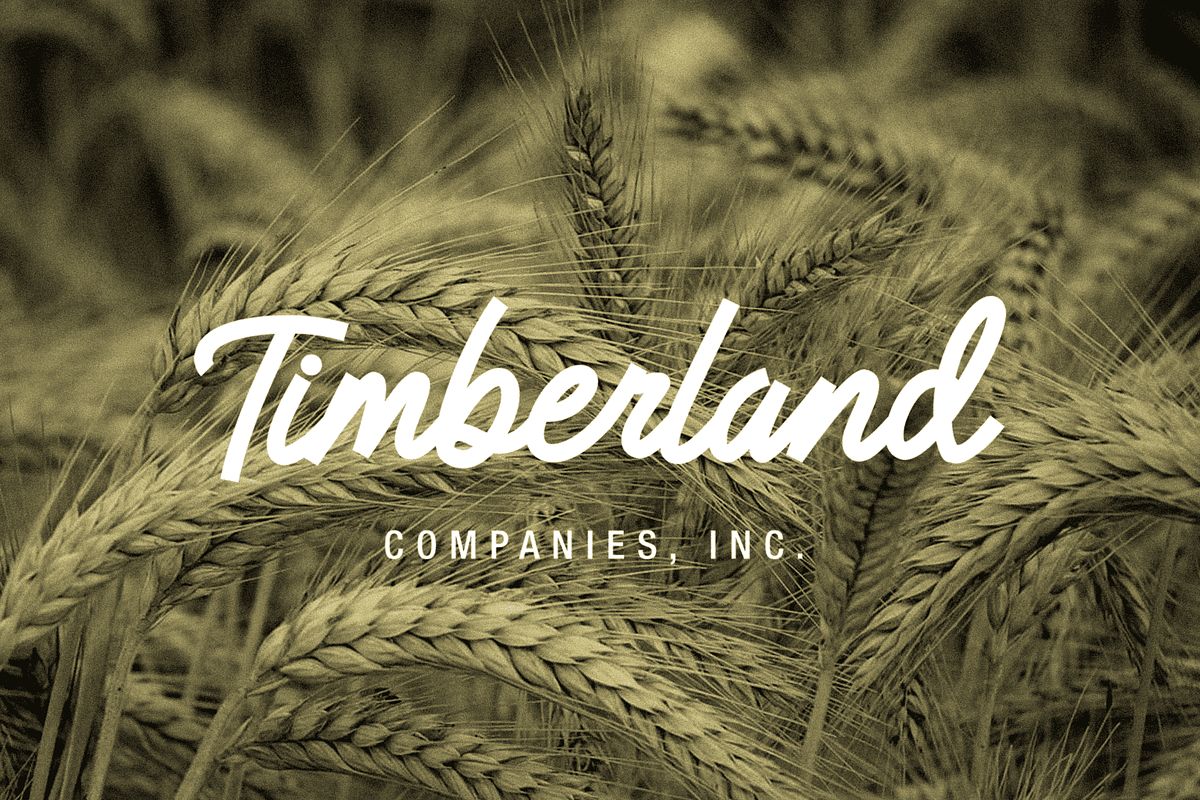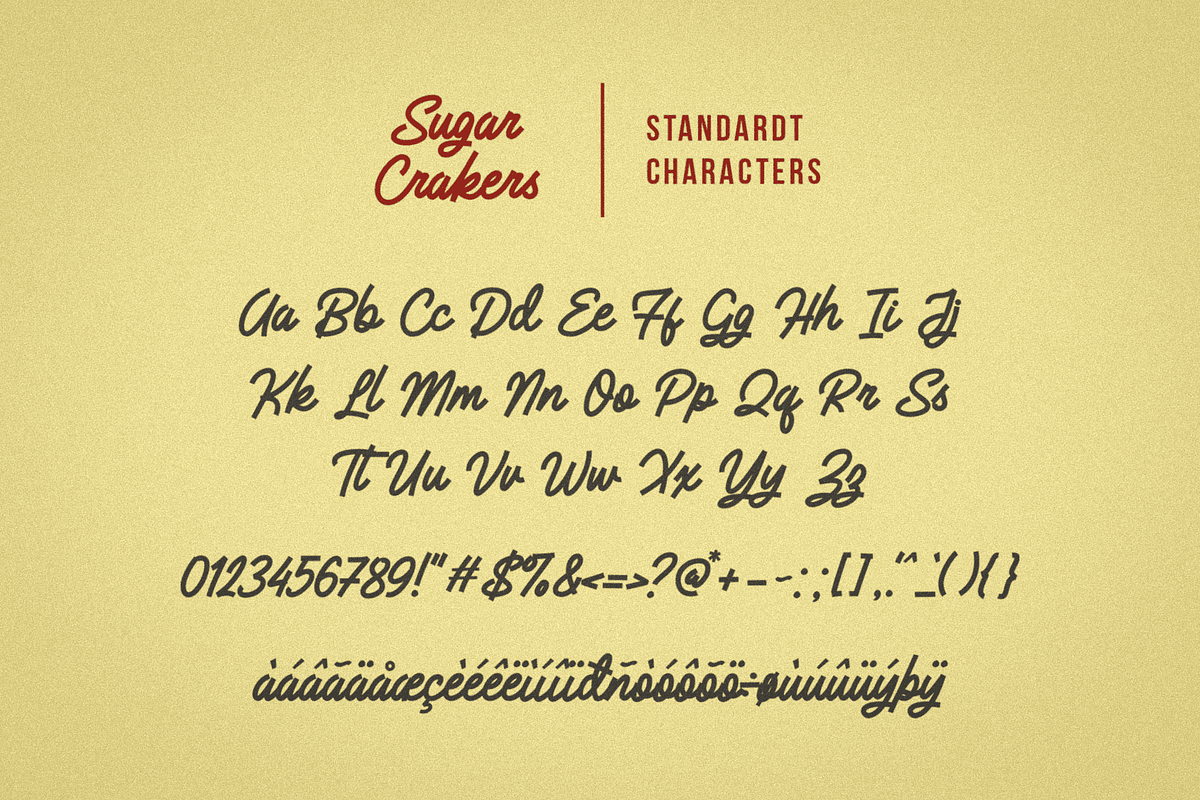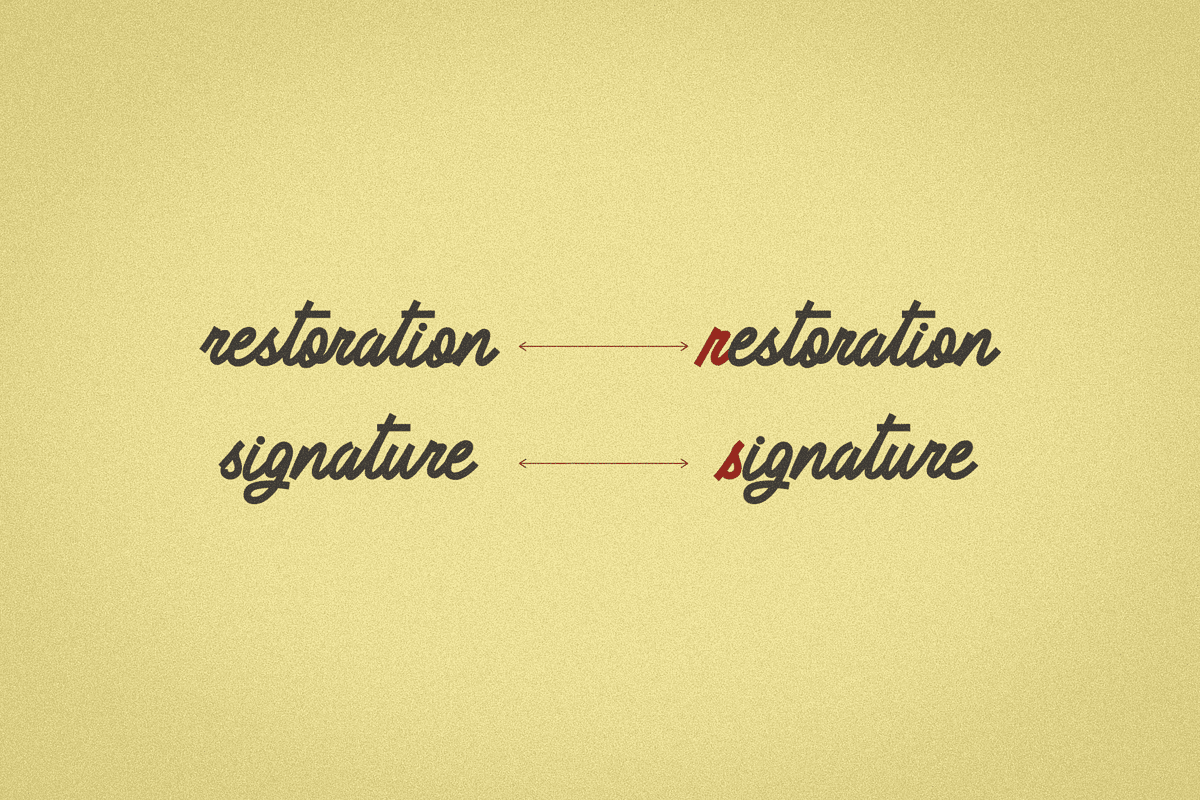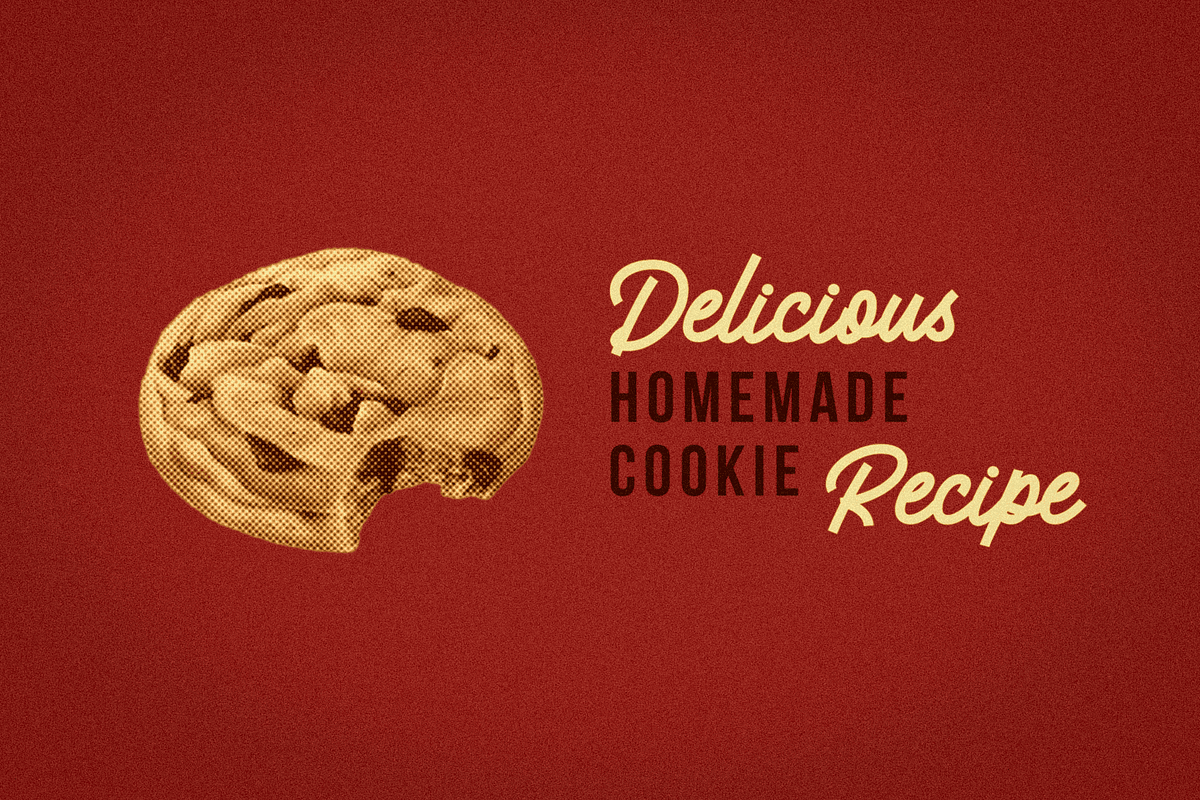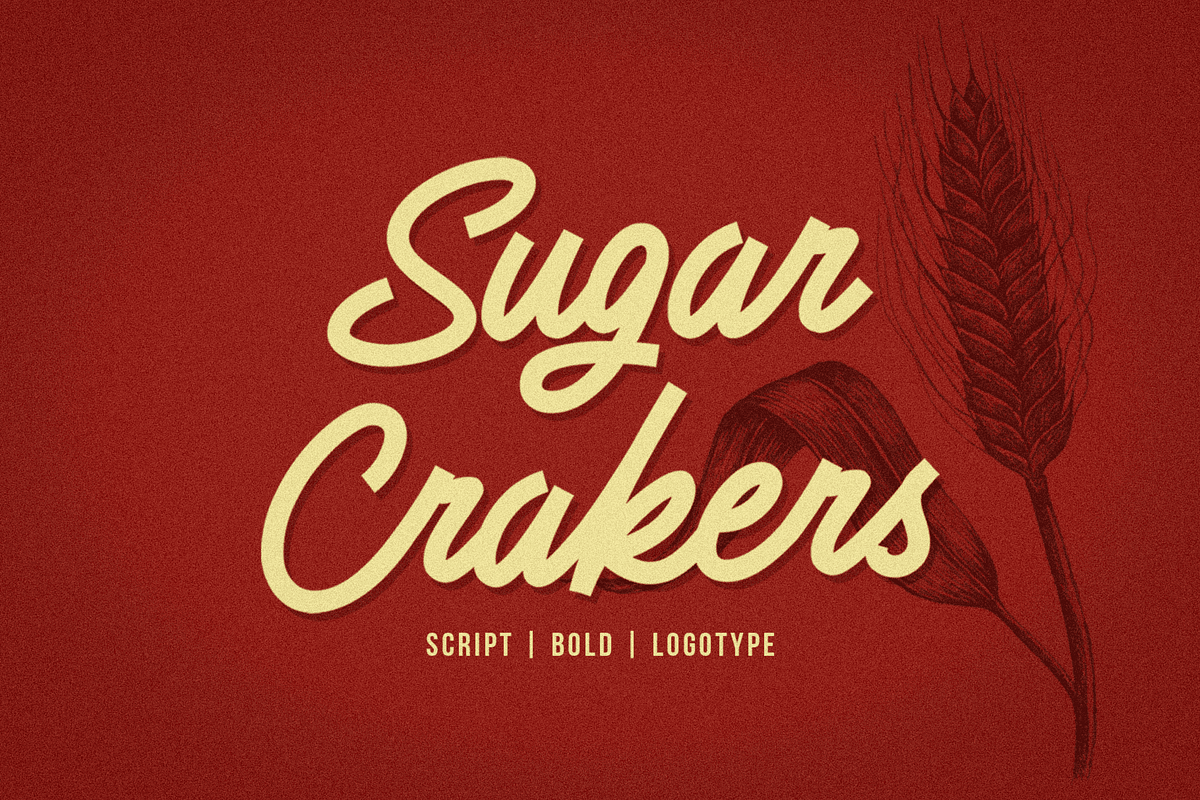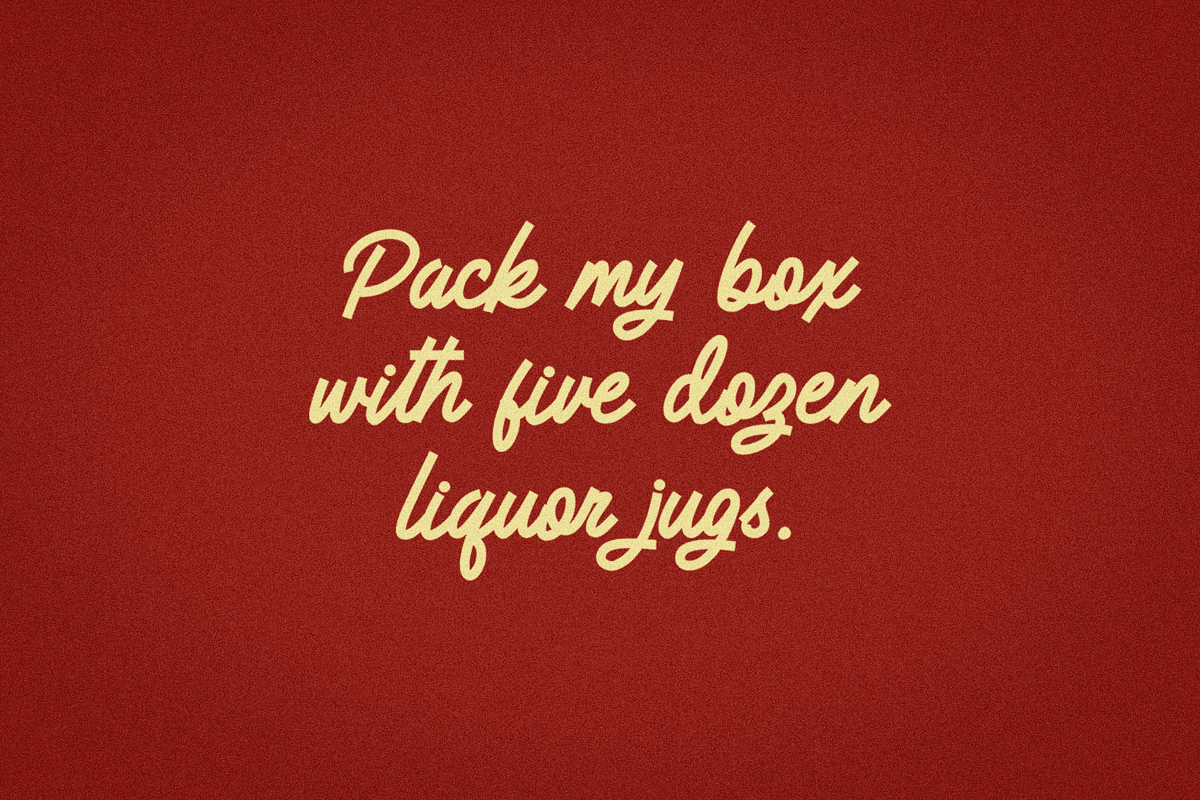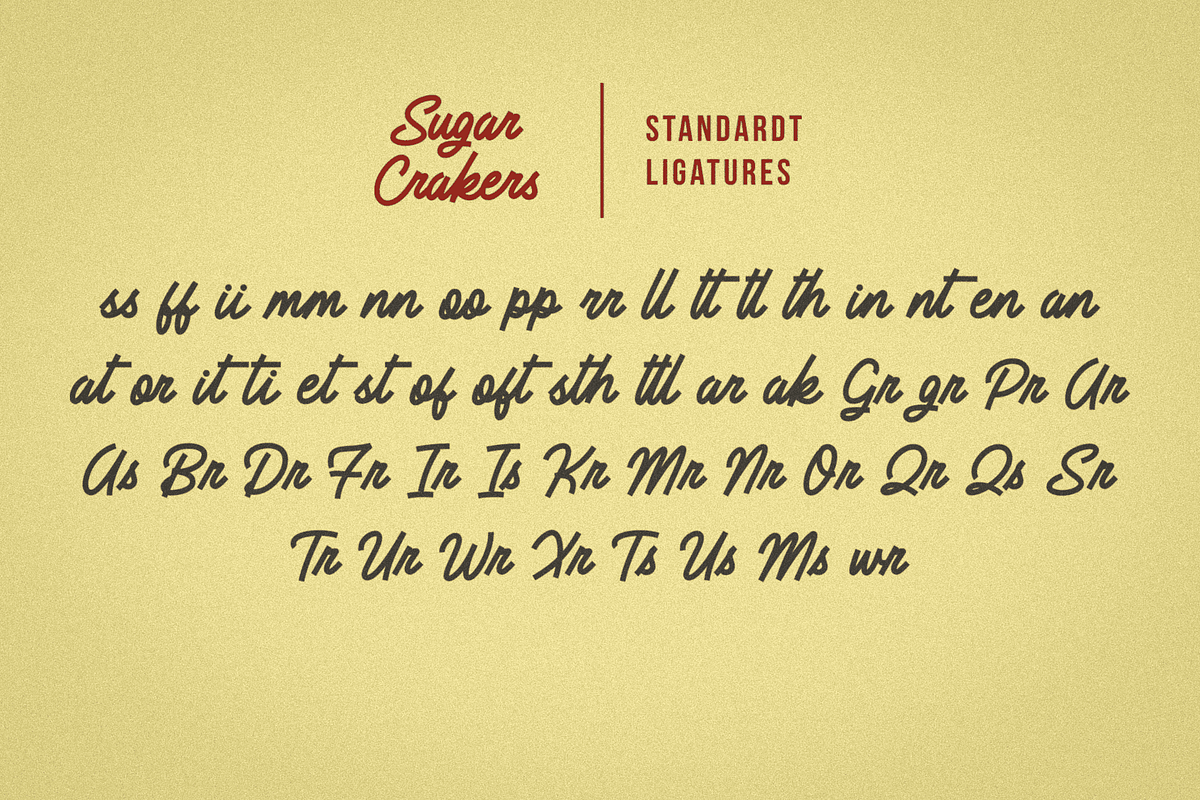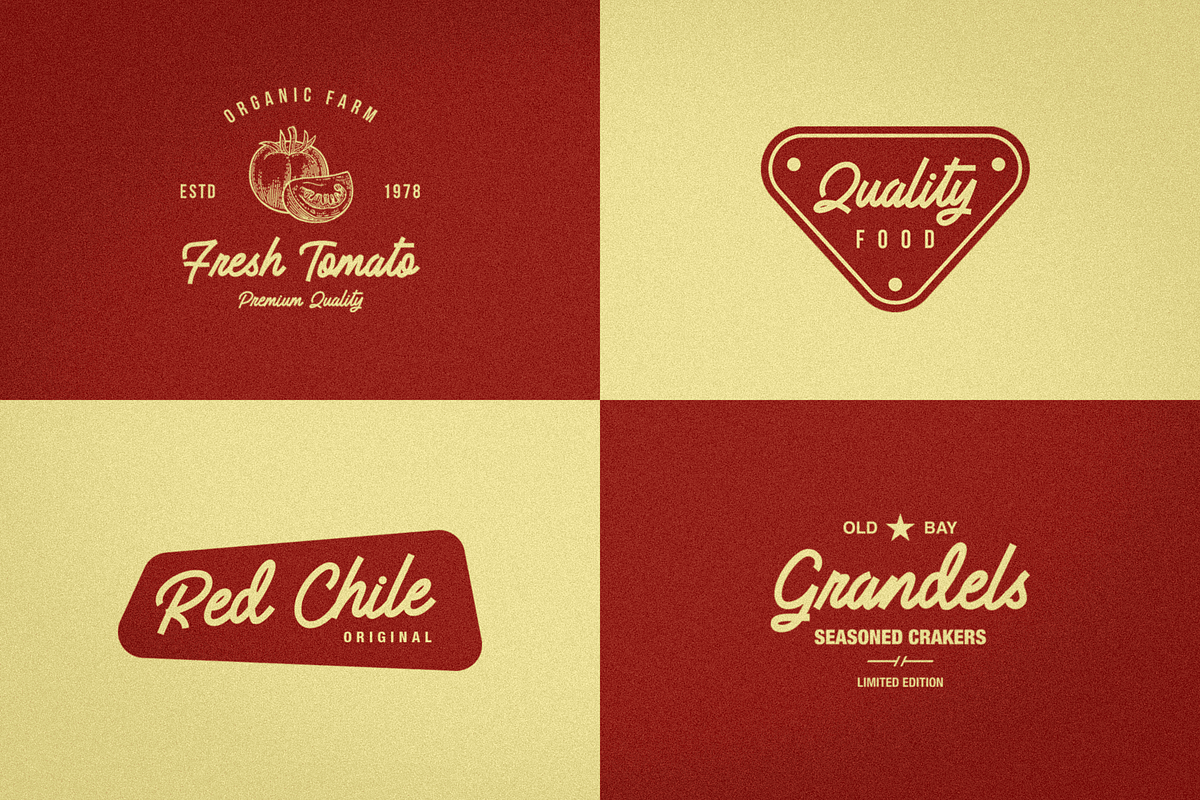
Sugar Crakers
Sugar Crakers is signature font is bold with pointed corner and supported with more than 45 ligatures.
Use your imagination to create company logos, product labels, headlines and other designs that will bring your designs to life and become more selling points. Use Sugar Crackers for your next project success.